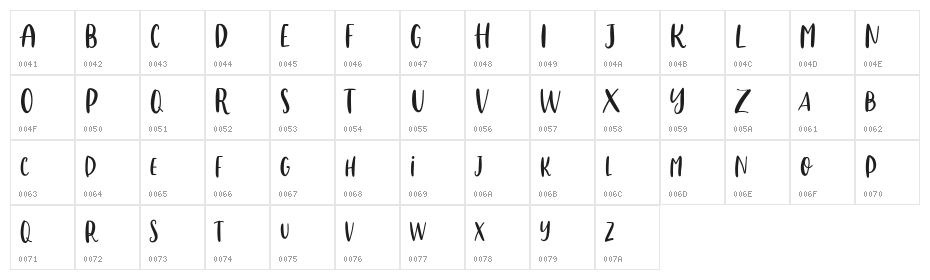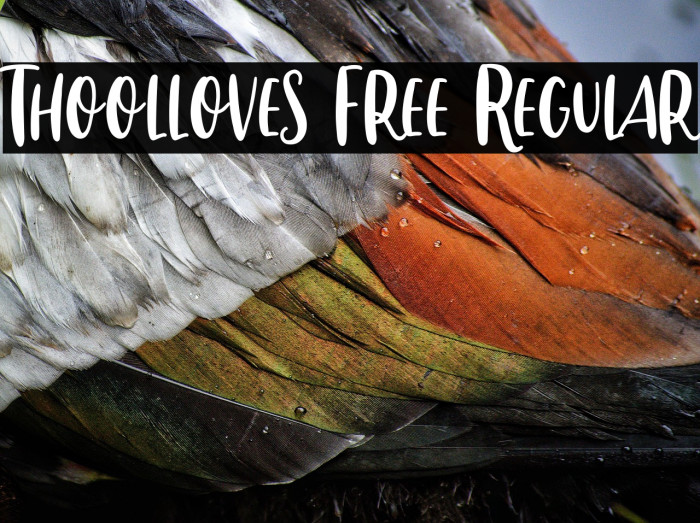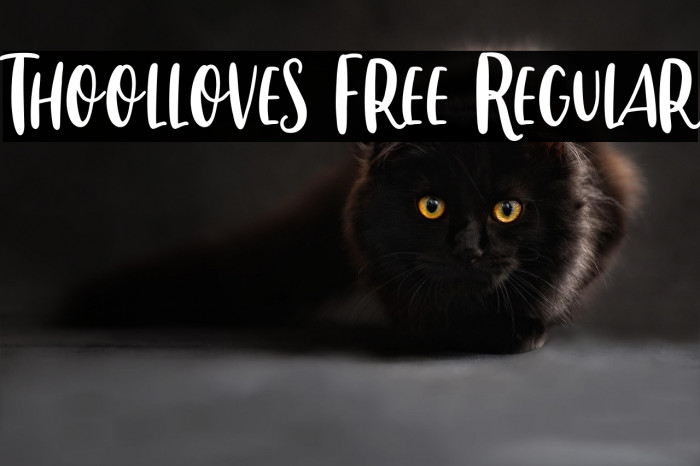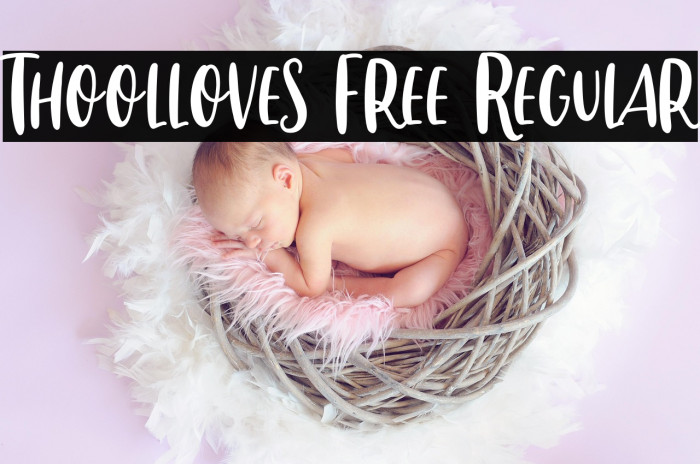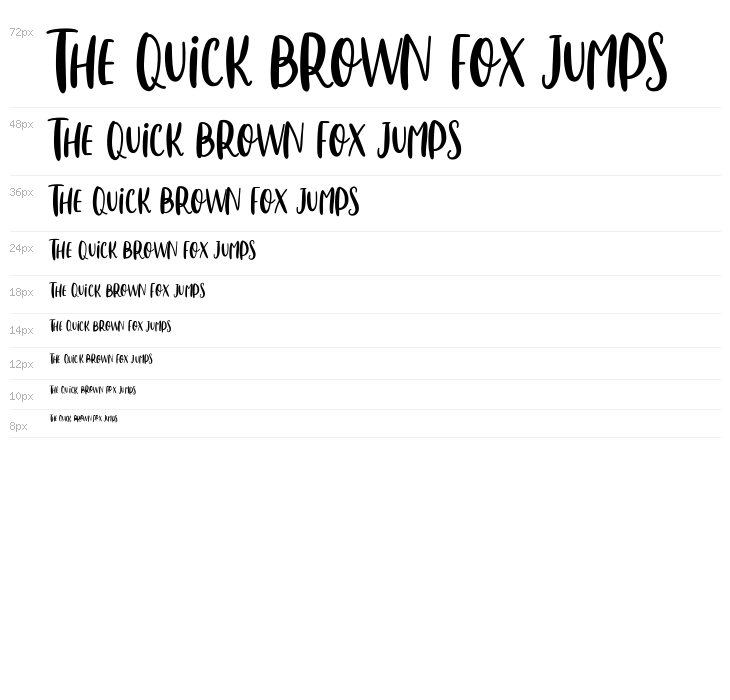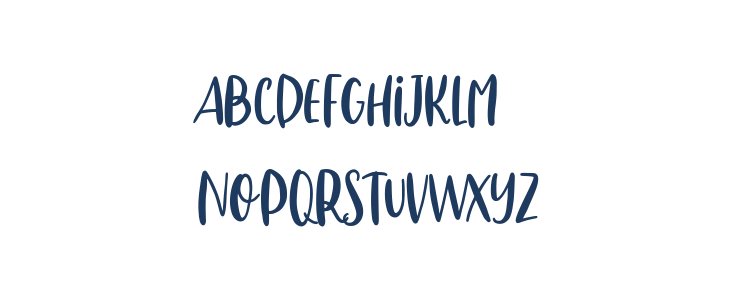
Thoolloves Free Regular Font
Thoolloves Free Regular Description
This font features a playful and energetic handwritten style, characterized by its bold and flowing letterforms. The letters have a consistent thickness, giving them a strong presence on the page. The strokes are smooth and slightly curved, adding a sense of movement and dynamism. The overall appearance is casual and friendly, making it suitable for projects that require a personal touch. The font maintains a good balance between readability and style, with each character clearly defined yet artistically rendered.
| Proposed Projects | Ideal for greeting cards, invitations, posters, and branding projects that require a personal and friendly touch. |